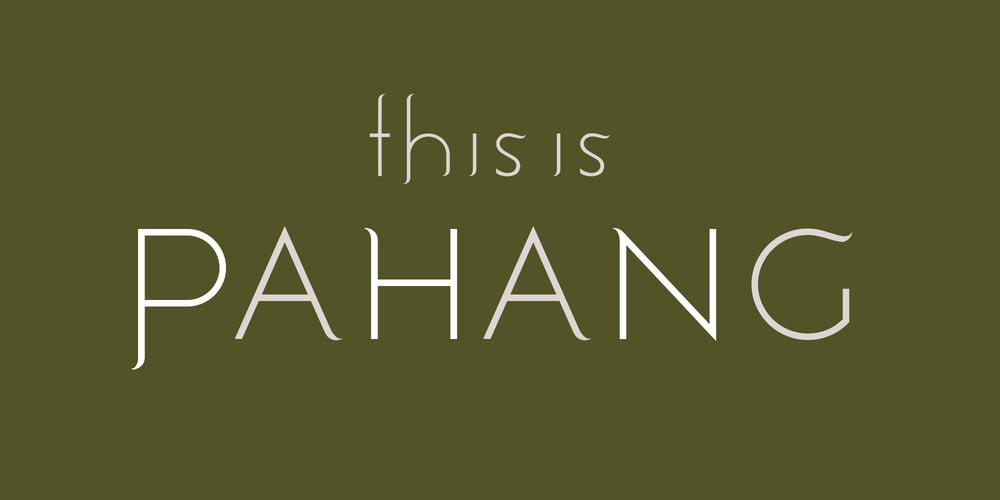
Pahang Font Family was designed by David Szabo and published by LostandFoundry. Pahang contains 2 styles and family package options. Pahang is a stylish new ‘crossover font’ for designers from LostandFoundry.This beautiful typeface has the look and feel of a modern sans serif font, but with classic, ‘serif-like’ touches.Pahang was inspired by the enormous dangling vines found in the tropical jungle surrounding my wife’s village house in Pahang, Malaysia. Use Pahang when you need a font that is modern, yet chic and sophisticated, and need to bring a unique identity to your design projects. Use Pahang in your headlines, titles, logos, packaging designs, signage & body-copy. And it makes a stunning wedding branding font. Or online, on websites, blogs, vlog titles, Youtube creator titles and social media post titles. Pahang supports French and German and other European languages.